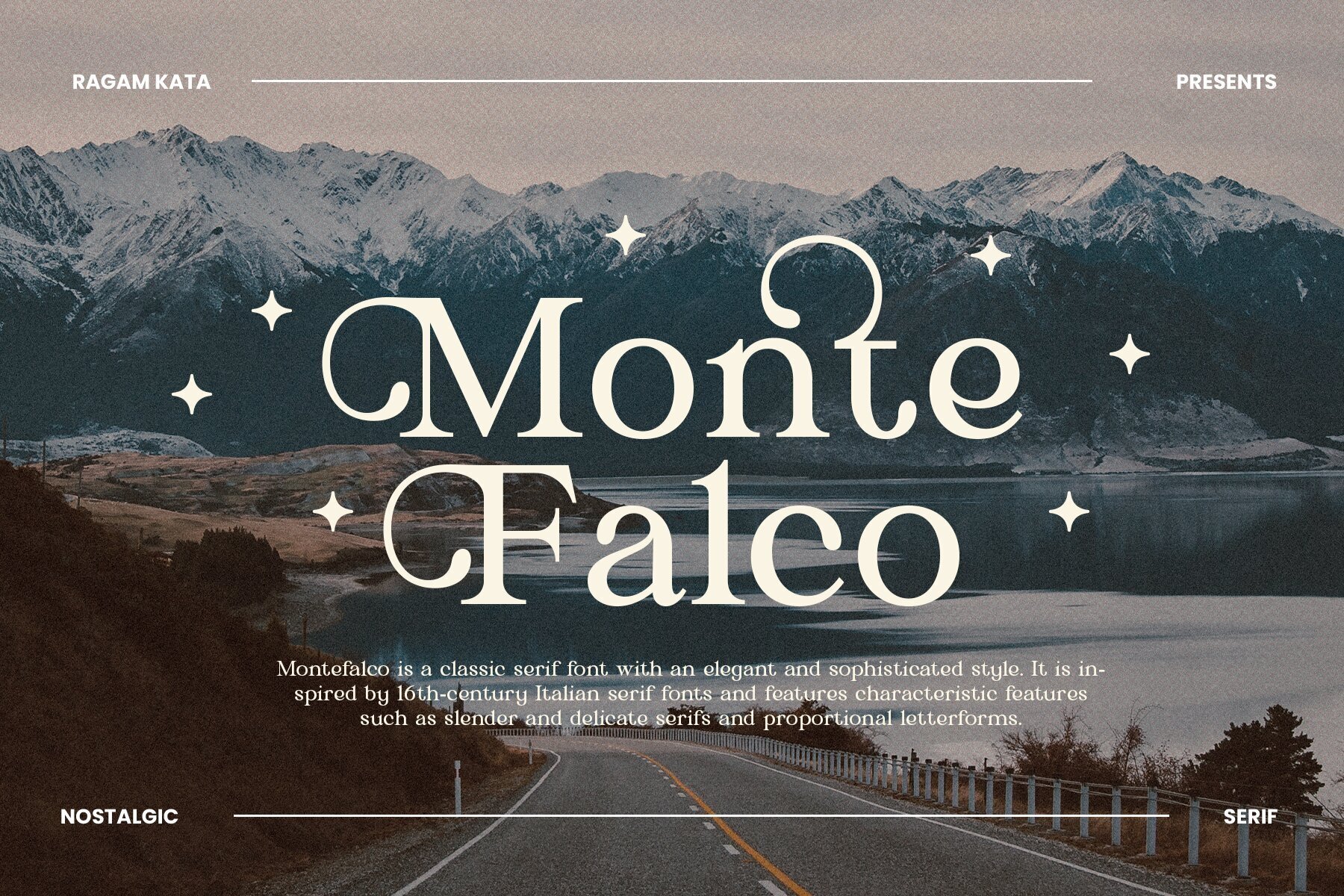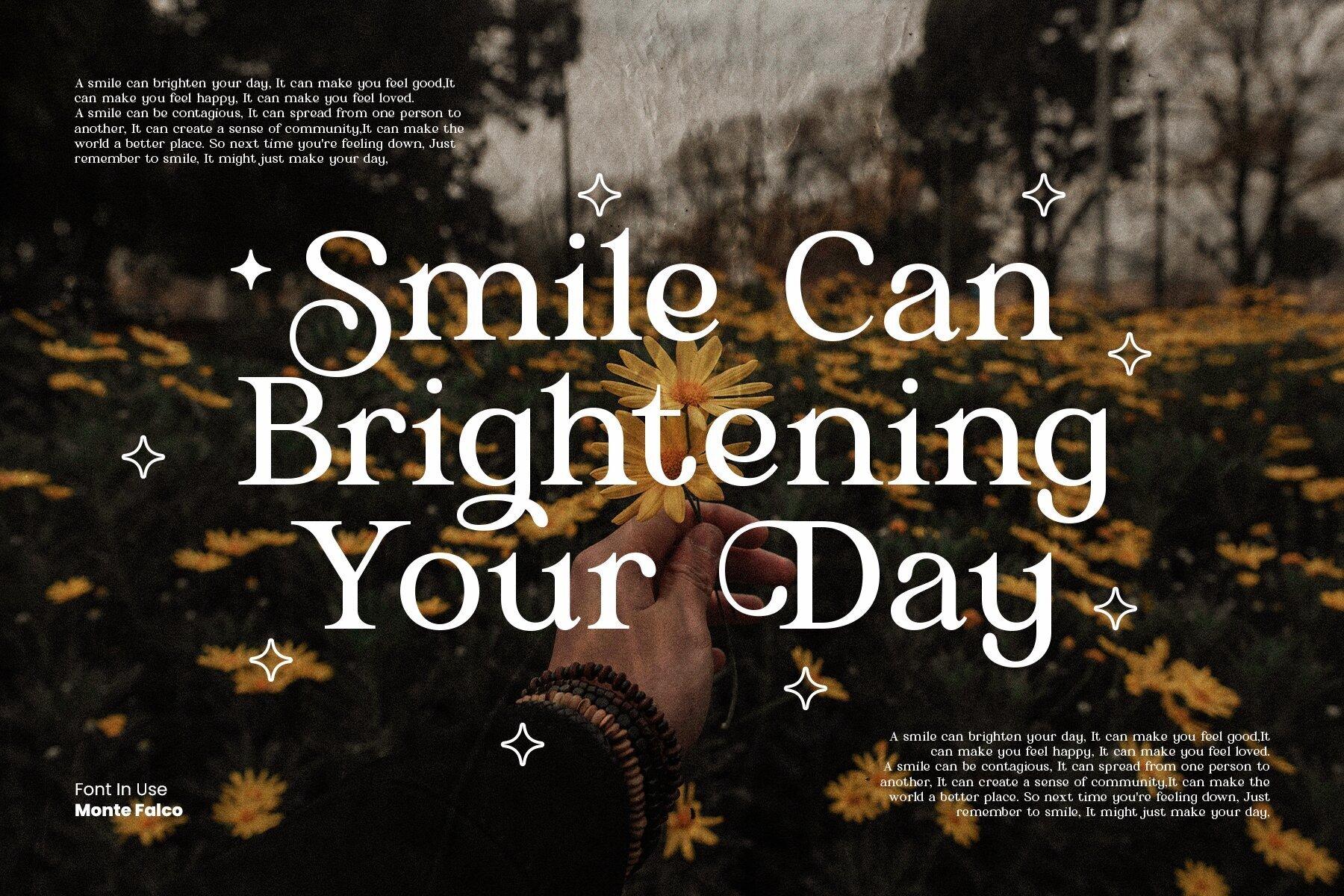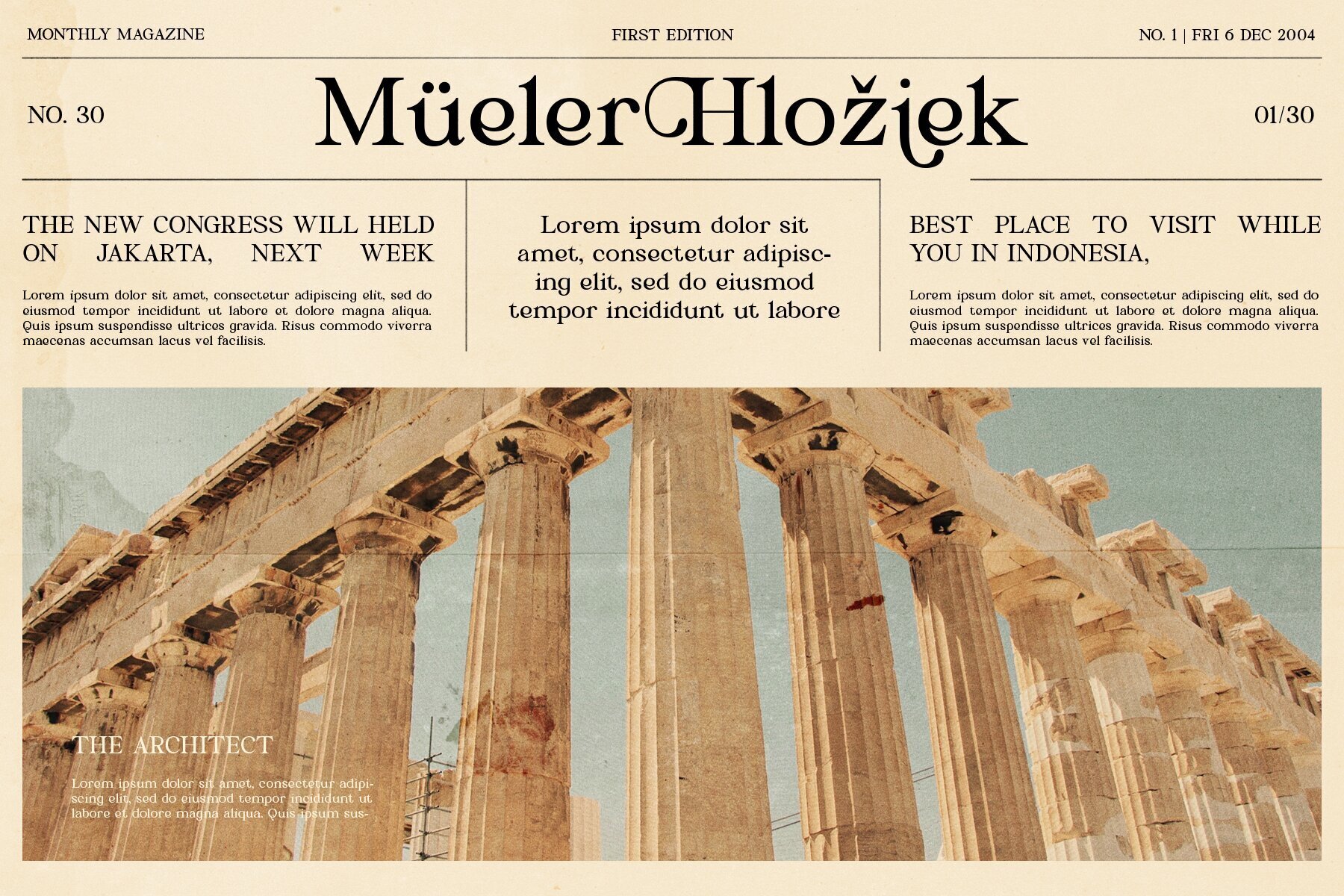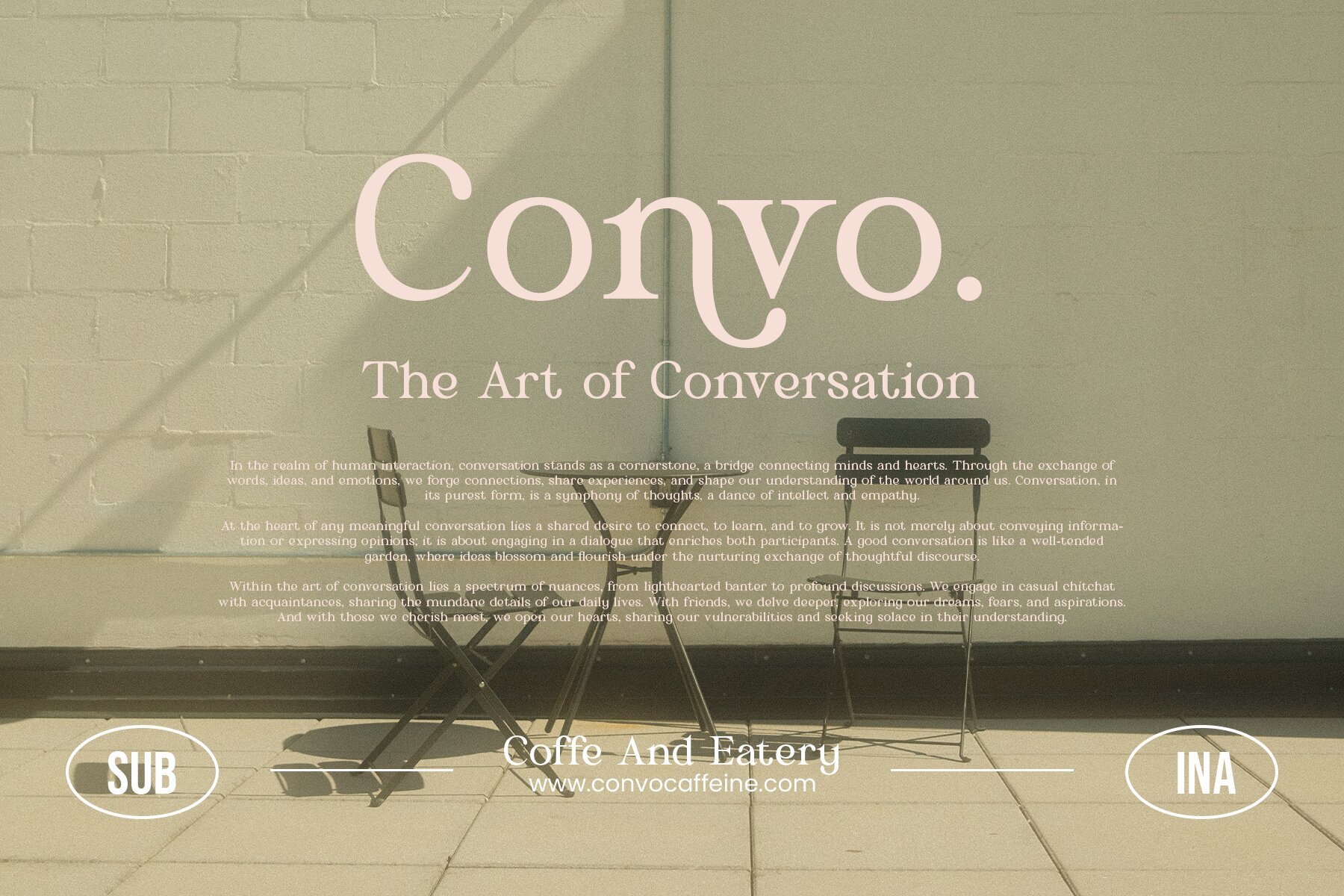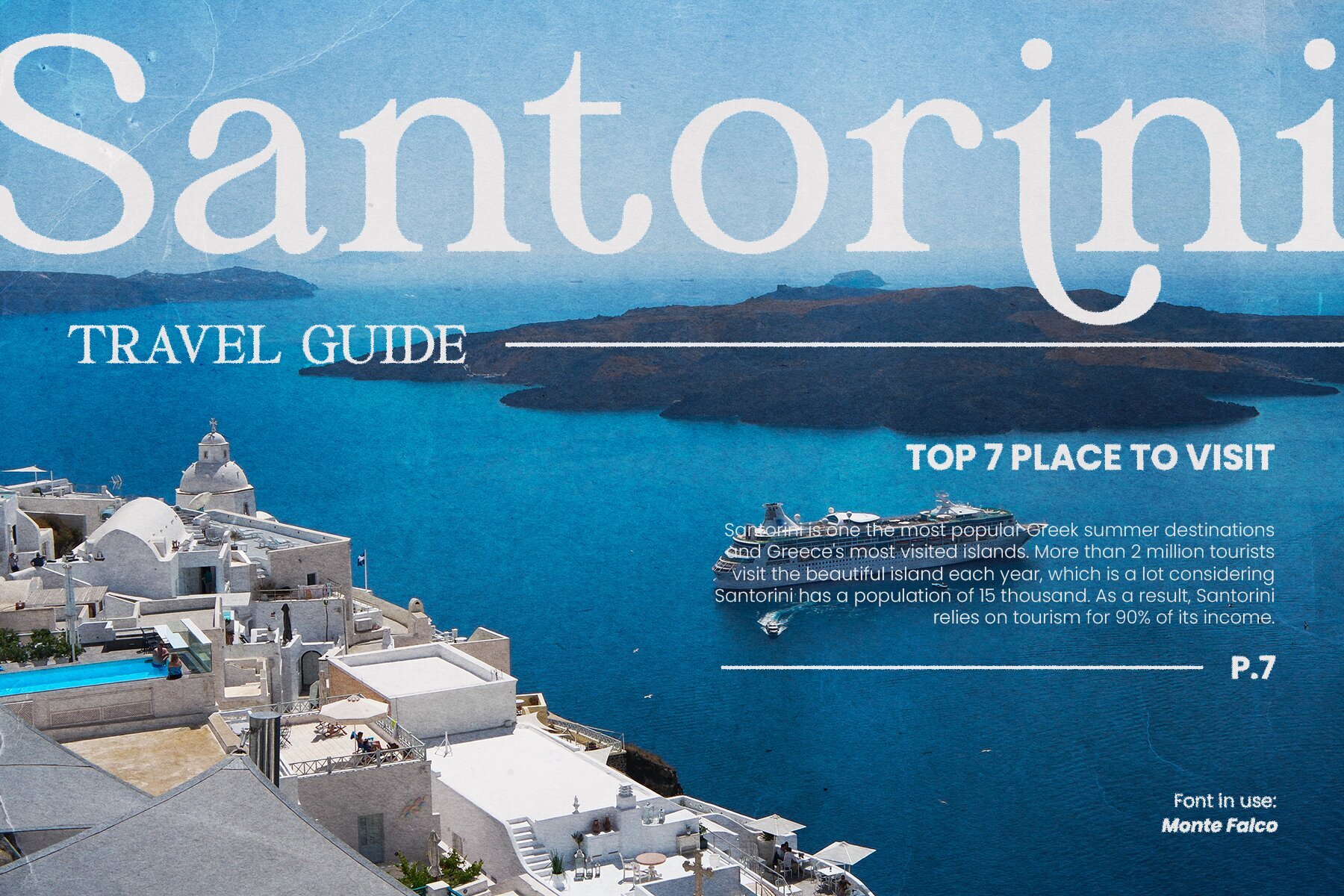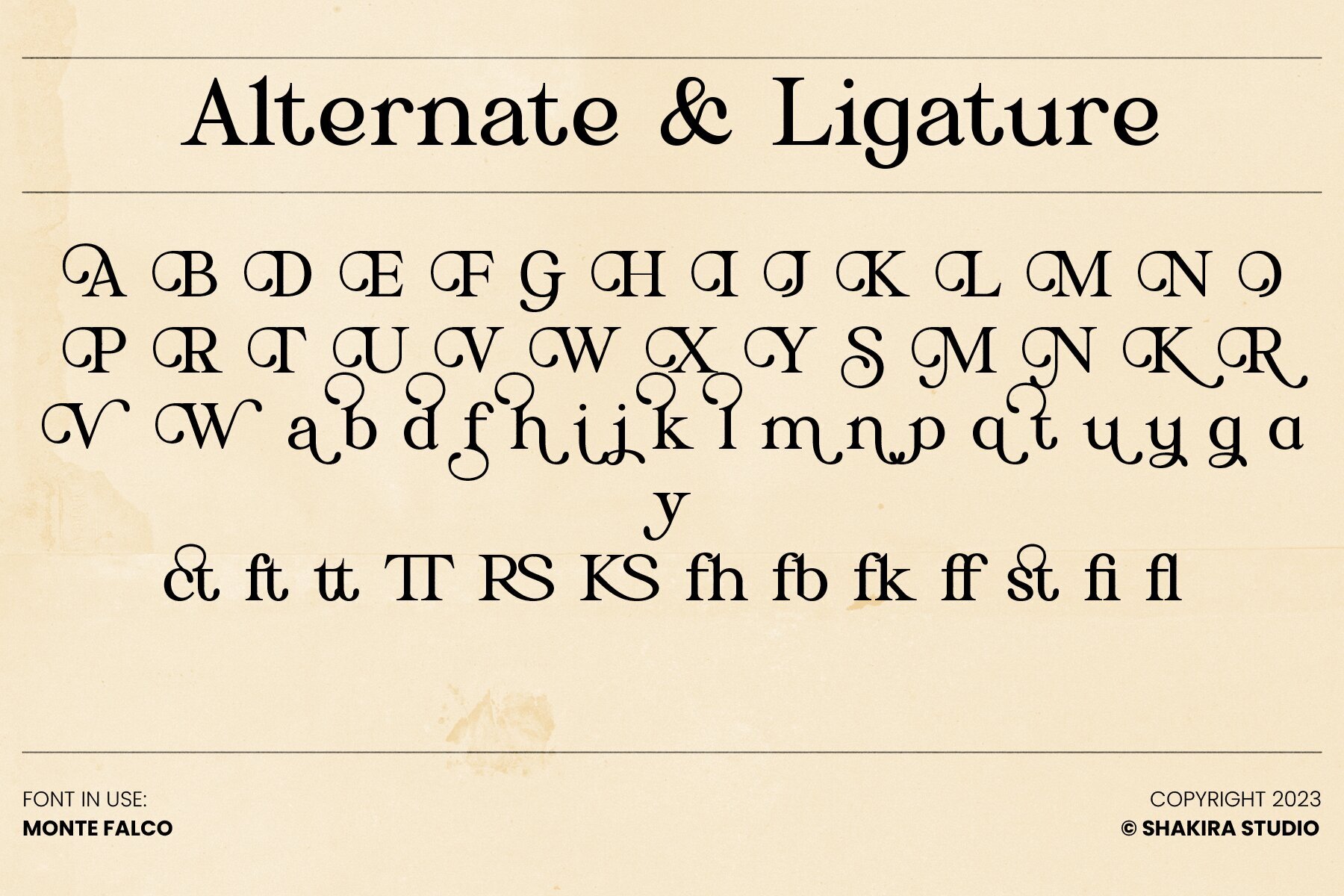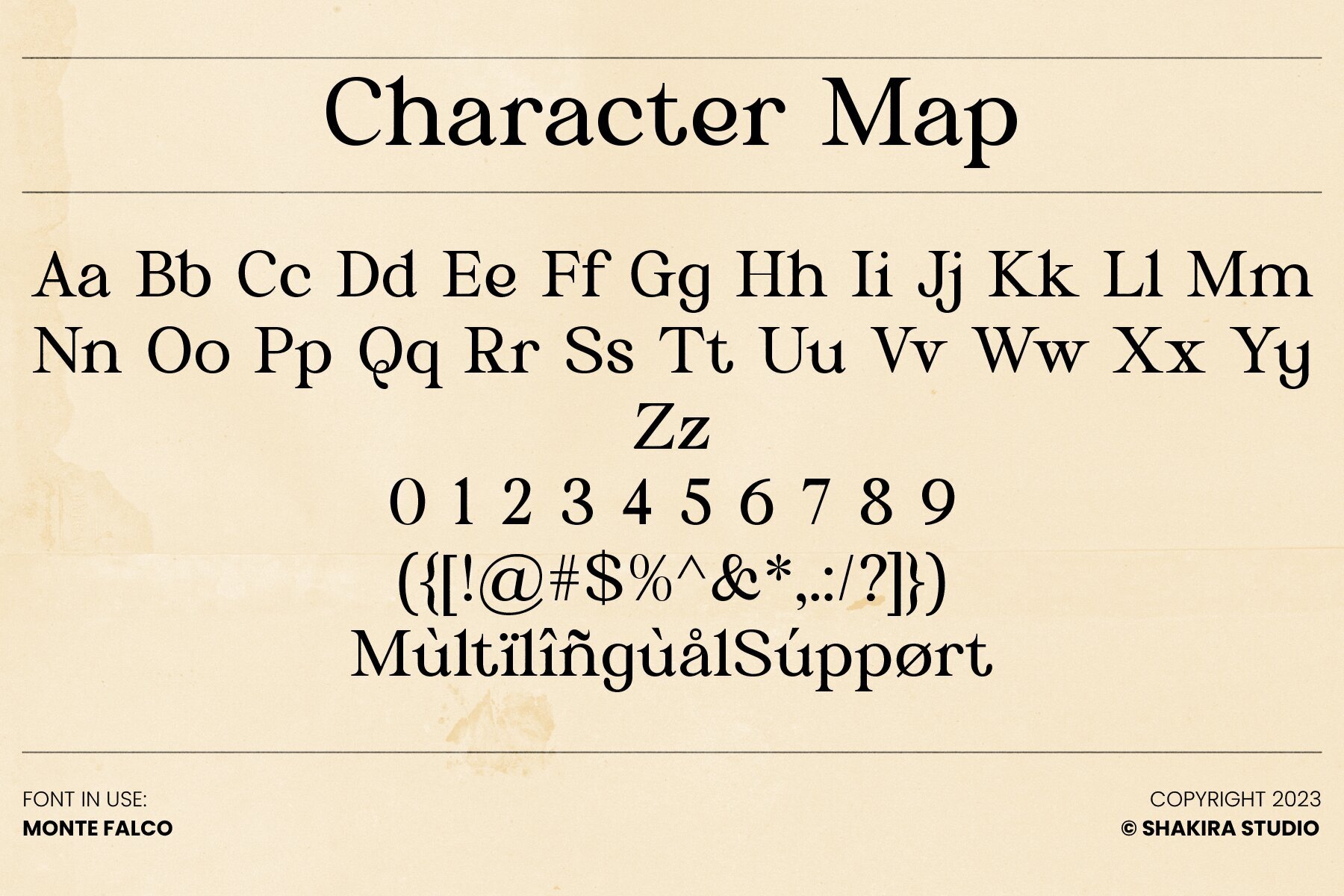
Monte Falco Font
Monte Falco Regular
Monte Falco is a classic serif font that exudes elegance and sophistication, drawing inspiration from 16th-century Italian serif designs. Its distinguished style features slender, delicate serifs and proportional letterforms, making it a timeless choice for various design projects. Feel free to reach out with any questions. Enjoy crafting with Monte Falco, and thank you for your support!Monte Falco: Elegant Serif with Italian Heritage